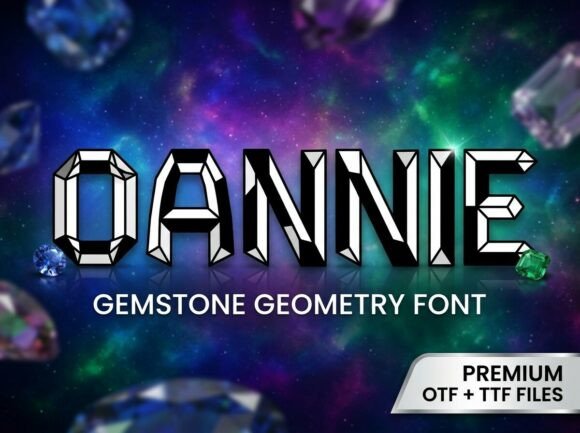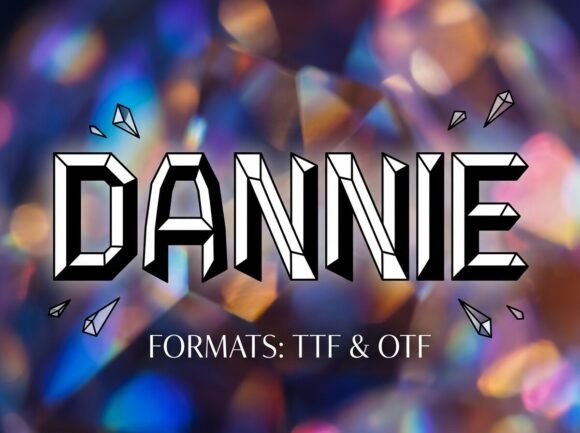
Introducing Dannie Font: A Stunning Decorative Display Font
Are you tired of using the same old fonts for your designs? Do you want to add a touch of uniqueness and creativity to your projects? Look no further than Dannie Font, a breathtaking decorative display font that’s sure to turn heads. In this article, we’ll dive into the features and benefits of Dannie Font, and explore how it can elevate your designs to the next level.
A Font that’s Truly One-of-a-Kind
Dannie Font is a masterpiece of font design, boasting unique artistic elements and a strong visual personality that sets it apart from the crowd. This font is perfect for creators who want to break away from the ordinary and add a touch of sophistication to their work. Whether you’re designing bold headlines, artistic logos, or creative packaging, Dannie Font is the perfect choice.
One of the standout features of Dannie Font is its versatility. This font is suitable for a wide range of design applications, from high-impact headlines and logos to decorative initials and packaging. The font’s professional and polished finish ensures that it will look great in any context, from print to digital.
Before you make a purchase, it’s essential to note that Dannie Font is an ALL-CAPS (Uppercase Only) display typeface. This means that it does not include lowercase letters. However, this limitation is by design, as Dannie Font is specifically crafted for high-impact headlines, logos, and decorative initials where every letter is a work of art.
Why Choose Dannie Font?
So why should you choose Dannie Font for your next project? Here are just a few compelling reasons:
- Unique and eye-catching: Dannie Font is a true showstopper, with a distinctive design that’s sure to grab attention.
- Professional and polished: Despite its decorative nature, Dannie Font maintains a professional and polished finish that’s perfect for high-end designs.
- Versatile: Dannie Font can be used for a wide range of design applications, from headlines and logos to packaging and more.
Tips for Using Dannie Font
To get the most out of Dannie Font, here are a few tips:
- Use it sparingly: Due to its bold and decorative nature, it’s best to use Dannie Font sparingly to maximize its impact.
- Experiment with colors and textures: Dannie Font looks great in a variety of colors and textures, so don’t be afraid to get creative.
- Pair it with a simple font: For body text, pair Dannie Font with a simple and easy-to-read font to create visual contrast.
In conclusion, Dannie Font is a stunning decorative display font that’s perfect for creators who want to add a touch of uniqueness and creativity to their designs. With its unique artistic elements, strong visual personality, and versatility, Dannie Font is sure to become a go-to font in your design arsenal. So why wait? Get your hands on Dannie Font today and take your designs to the next level!